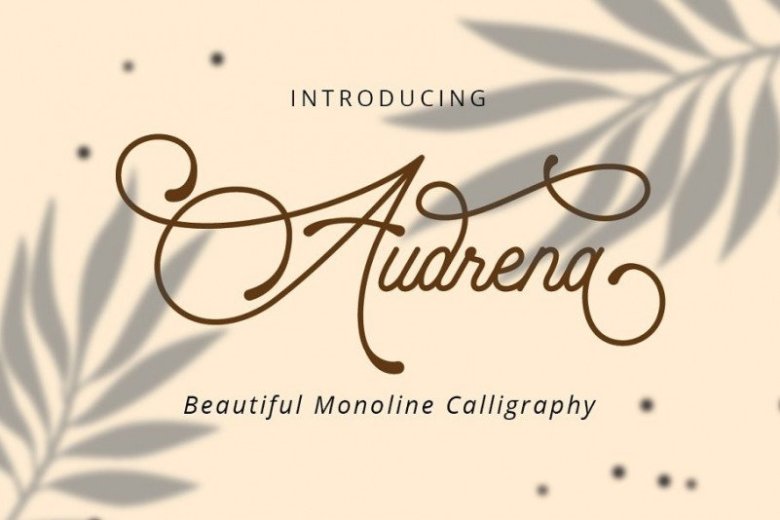
Audrena Script Font
Audrena Script Font is a lovely handwritten calligraphy font. It is perfect for branding, wedding invites and cards. Made from font designer named PutraCetol Studio. A new elegant modern script font. a lovely, elegant and sweet script font. Audrena is perfect for styling logos, stationery, wedding event, invitation, quote, social media, websites and so much more!
Come with Opentype feature with a lot of alternates, its help you to make great lettering.This font is also support multi language.